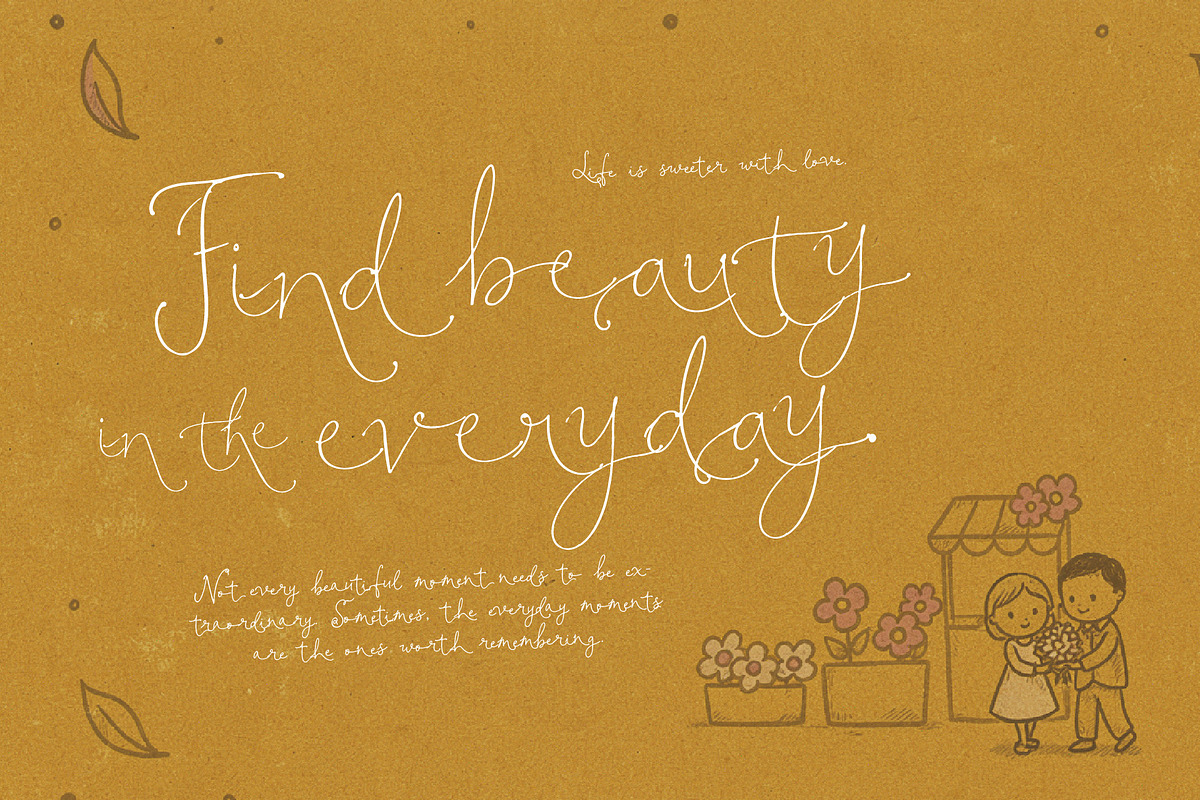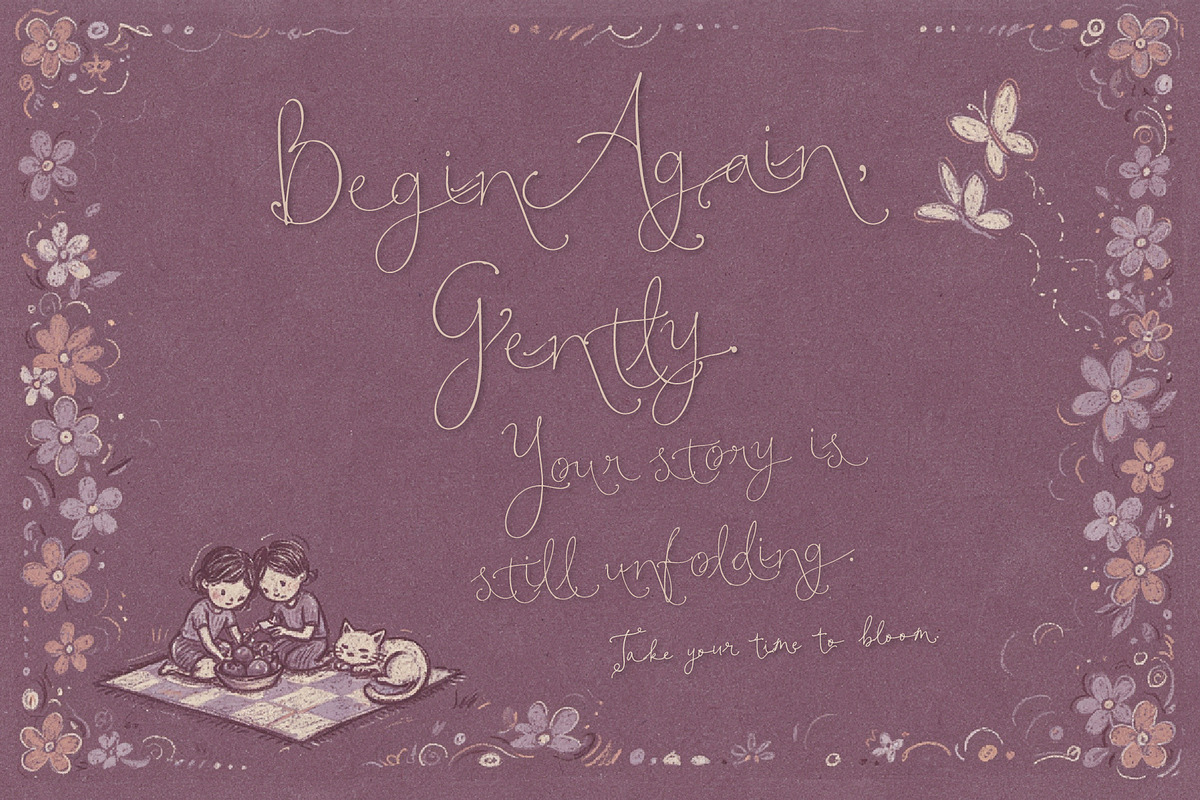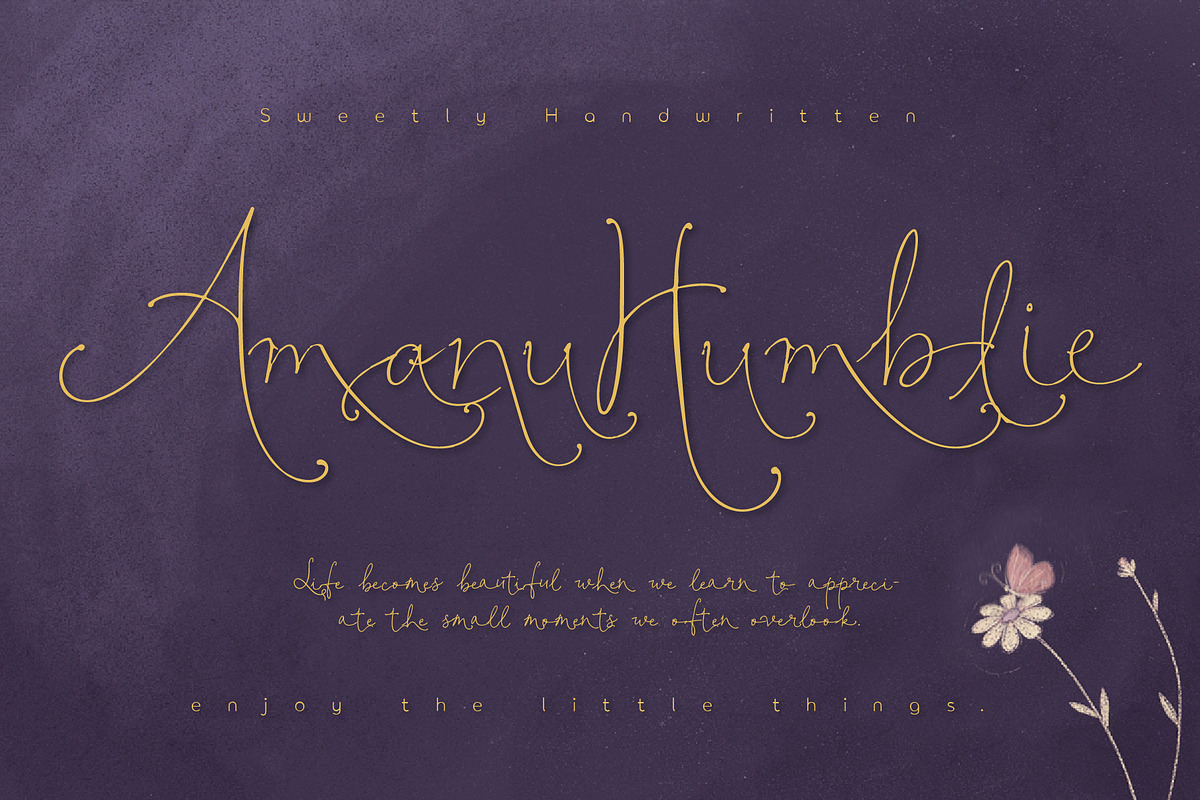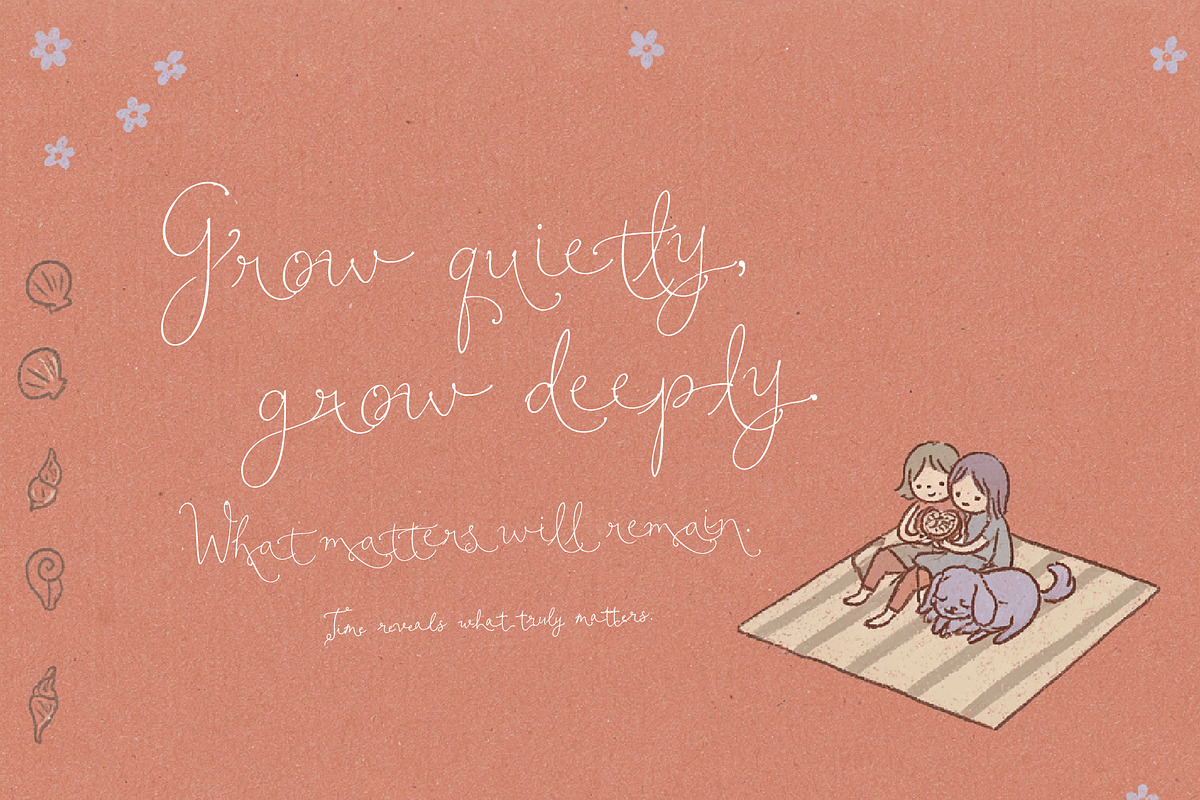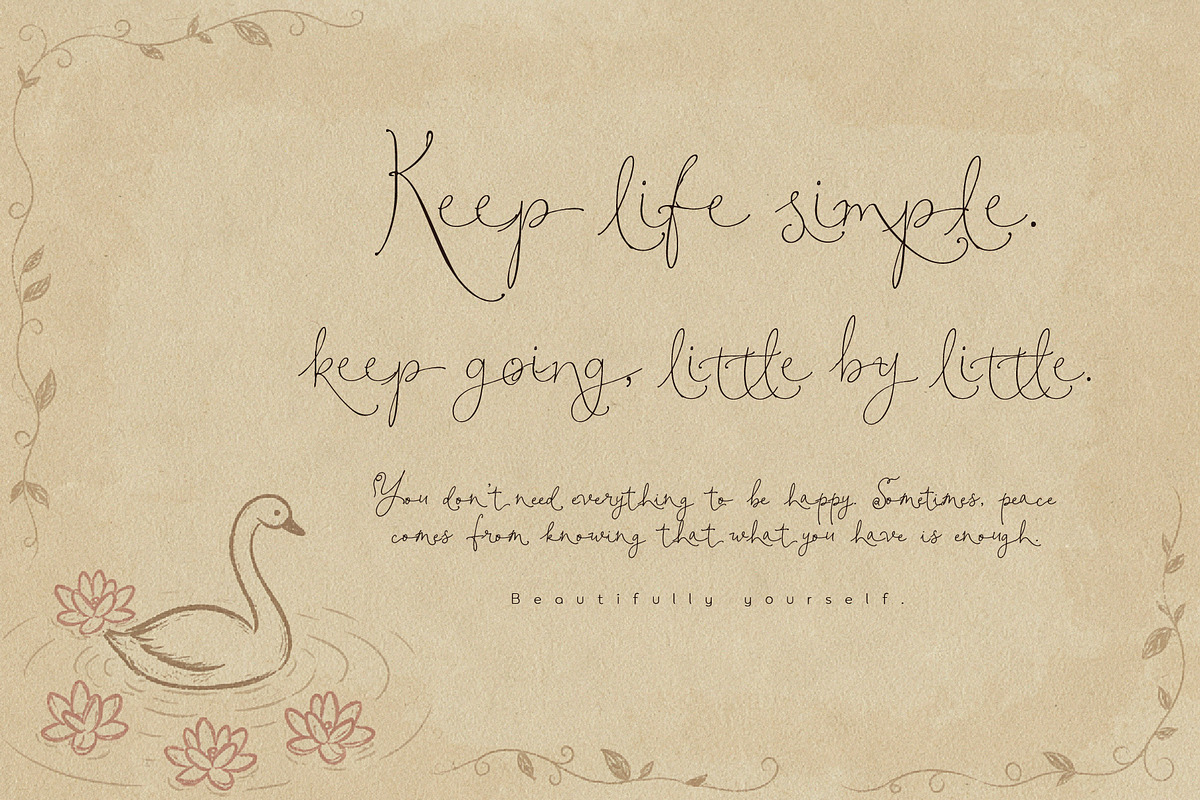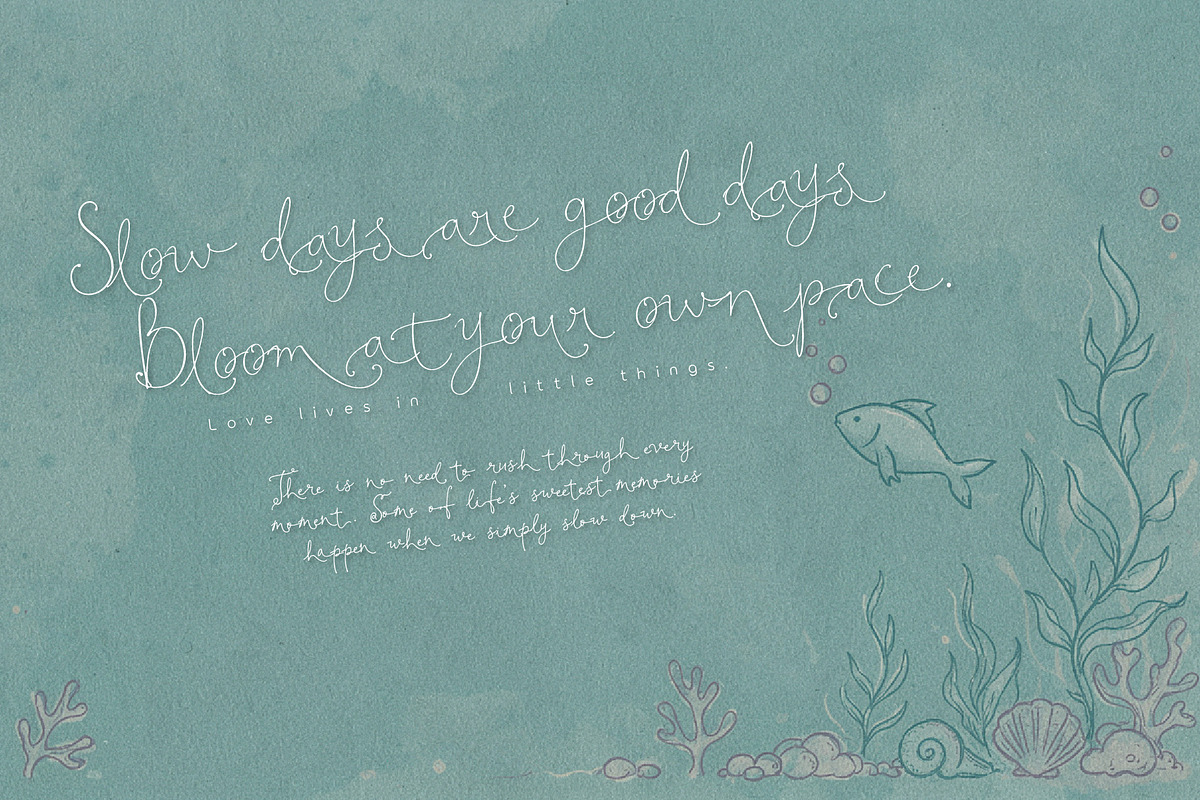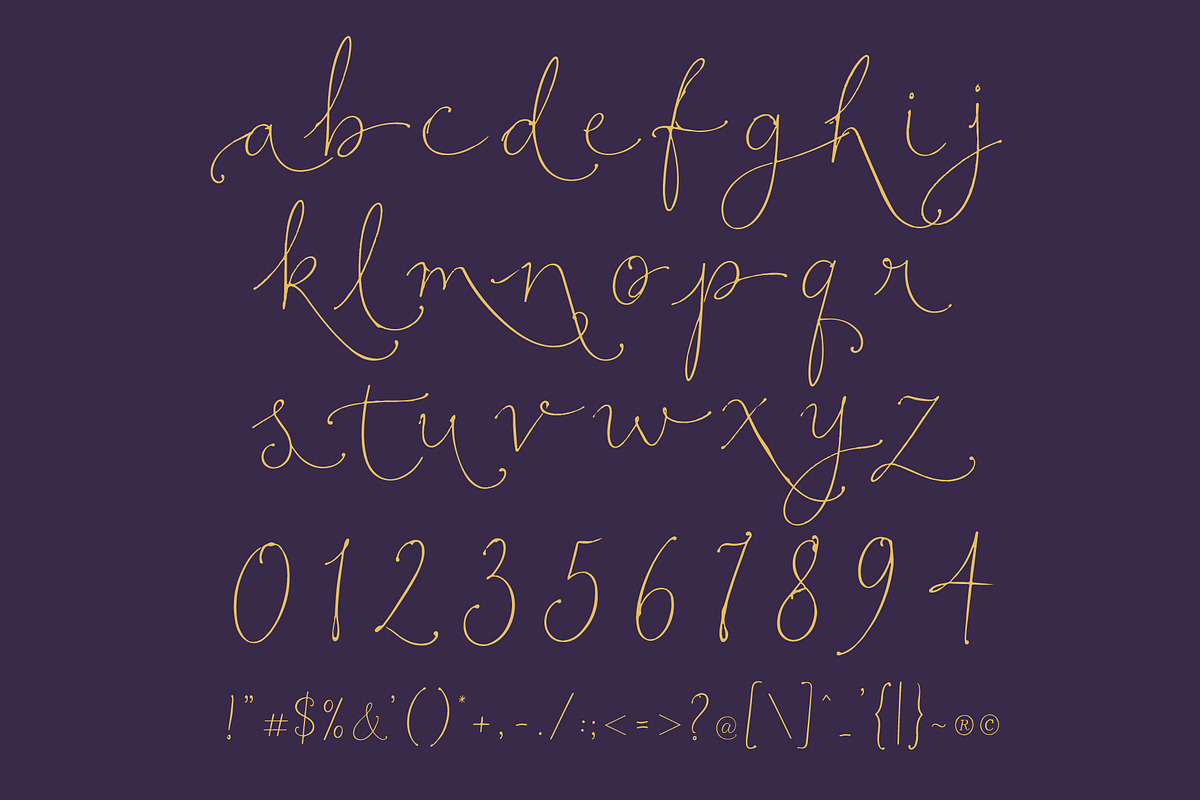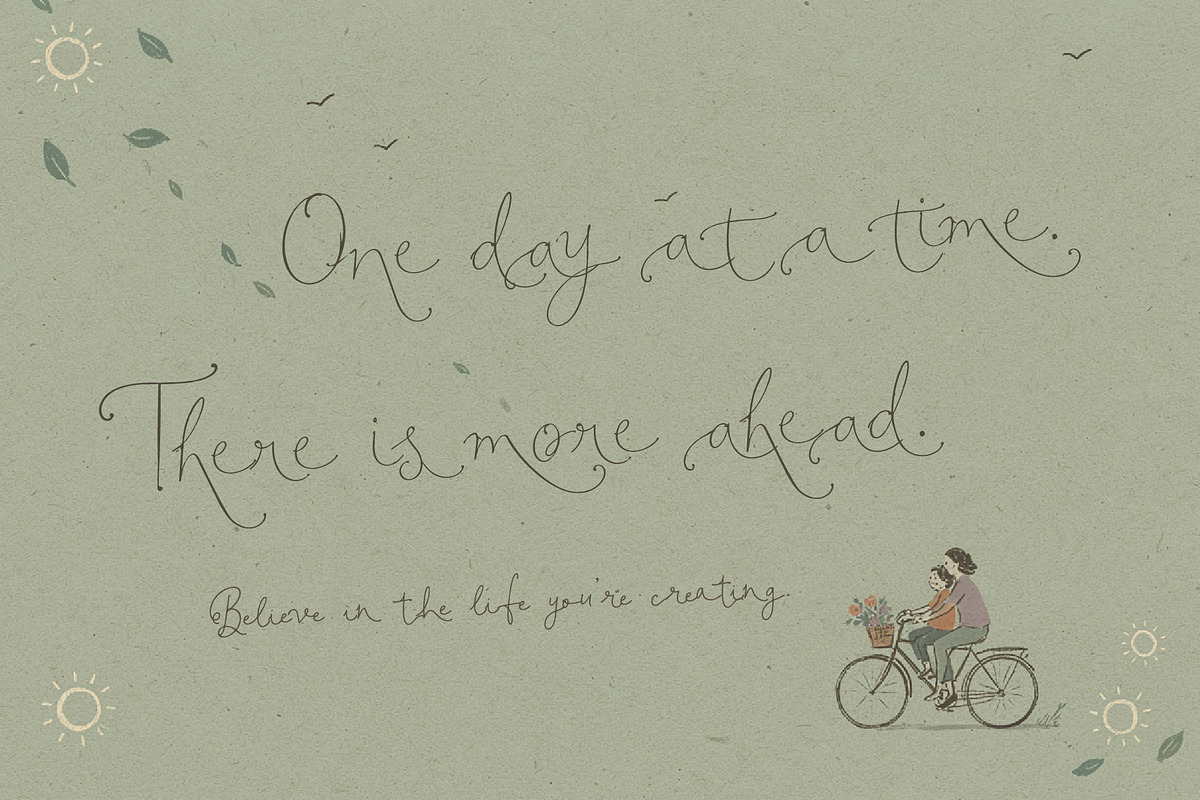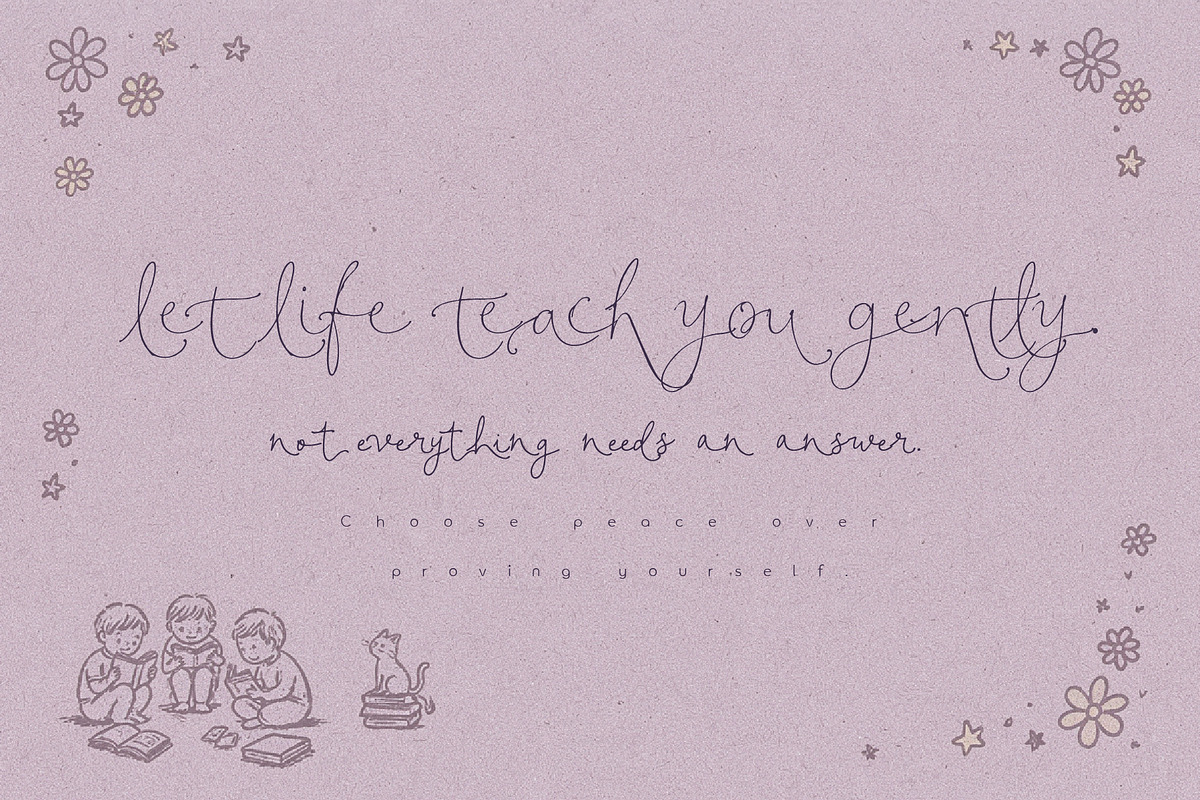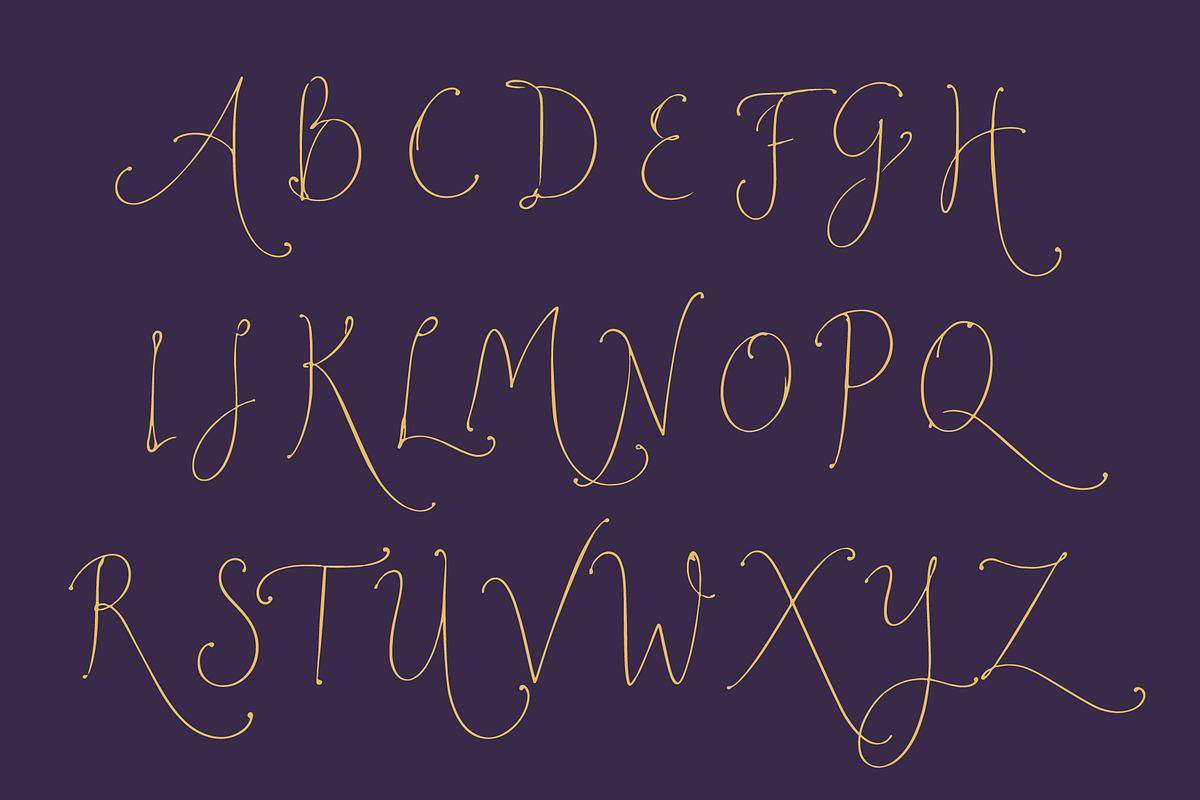
Amanu Humblie - Cute Friendly Script
Amanu Humblie is a cute and feminine handwritten script with a minimalist signature style. Its natural hand-drawn strokes, simple curves, and playful imperfections create a warm, personal character that feels effortless and charming.
Simple without feeling plain, Amanu Humblie is perfect for designs that need a friendly and personal touch. It works beautifully for logos, branding, stationery, packaging, fashion, beauty, lifestyle, social media, invitations, quotes, journals, and personal projects.
A sweet handwritten script for designs that feel simple, feminine, friendly, playful, and beautifully personal.